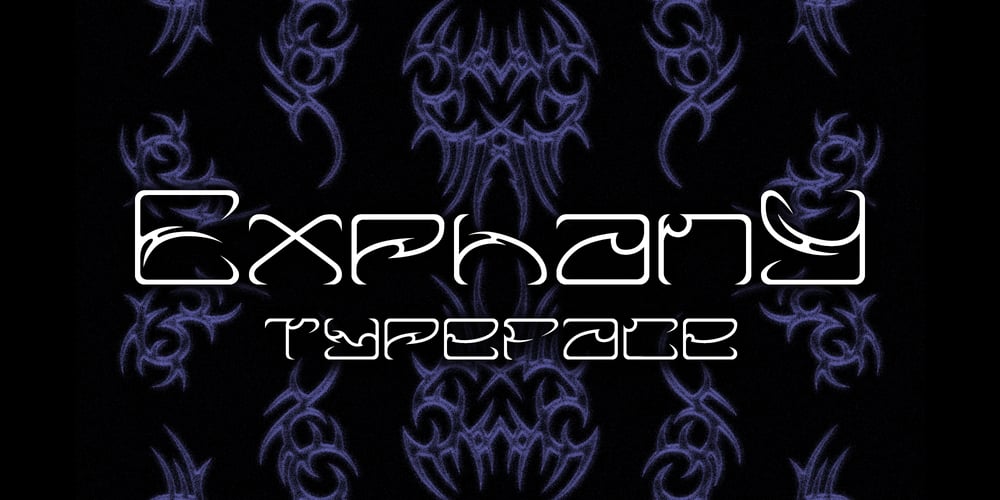
Exphany Font Family was designed by Danil Reyman and published by Danil Reyman. Exphany contains 1 styles and family package options. The font is made in the direction of Tribal aesthetics. He is restrained, but at the same time very cityistic, has an aggressive mood.